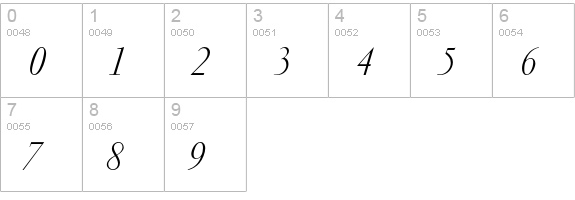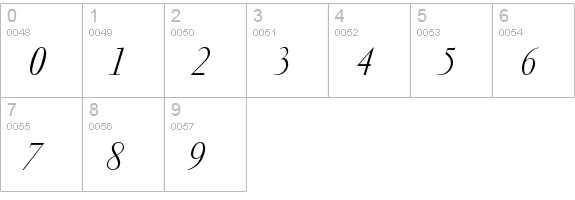
GaramondLight-Italic Font Details
GaramondLight-Italic is a distinctive, italic variant in the GaramondLight typeface family \xE2\x80\x94 well suited to design and typography projects.
GaramondLight-Italic is a stunningly elegant and sophisticated font that exudes a sense of timeless beauty and grace. Its delicate slant and graceful curves make it perfect for adding a touch of refinement to any design project. The italicized version of the classic Garamond typeface, GaramondLight-Italic brings a touch of flair and sophistication to any text it graces. What makes GaramondLight-Italic even more appealing is that it is available for free download at FontsMarket.com. This means that you can easily access this exquisite font and use it in your projects without any cost. Whether you are working on a print design, a website, or any other creative endeavor, GaramondLight-Italic is sure to elevate the look and feel of your work. Download this beautiful font today and add a touch of timeless elegance to your designs.